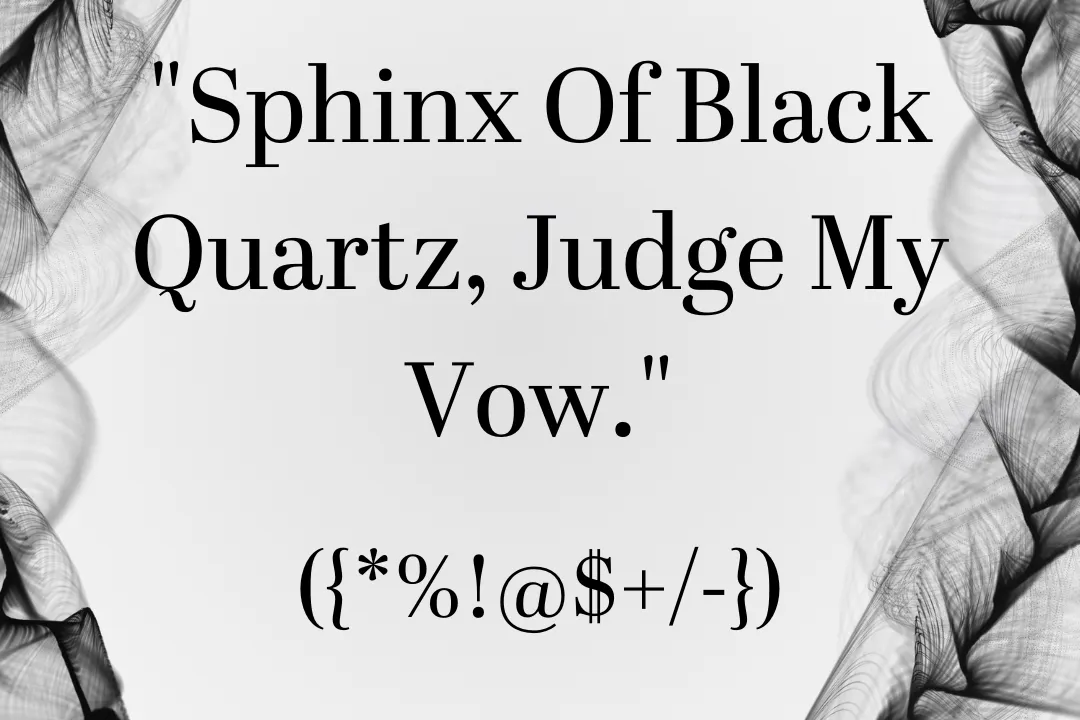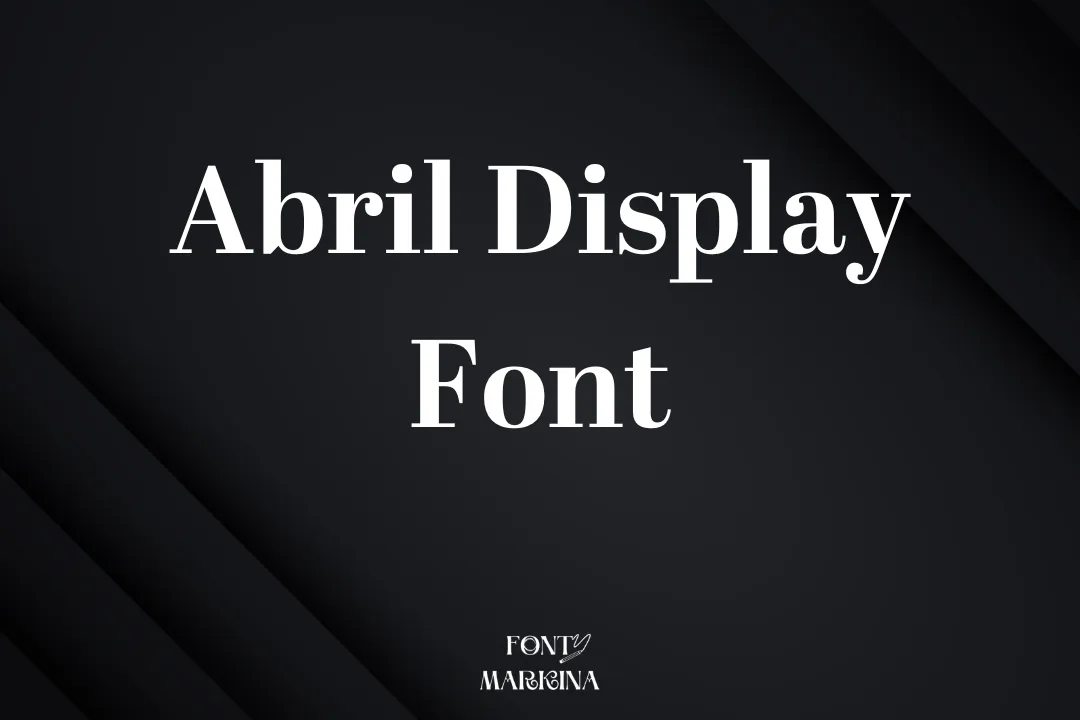
Introducing to you a staggering texture known as Abril Display Font. It belongs to the category of serif fonts. This incredible texture comes in eight unique text styles and also it is available in twelve display styles. Each style has its special and outstanding character set.
This font family supports more than 50 popular languages all over the world. Similar fonts to this family are available on google fonts. Some unique styles are Bold, Italic, Semi-bold, extra bold, regular, and others.
You can also utilize its similar Belda Font has more classic features. The sub-family of Abril Display Font is Italic. Also, you can utilize its generator tool for graphic projects.
Who can design the Abril Display Font
The hard work of Jose Scaglione and Veronika Burian developed this tremendous typeface. They update this font family in the year 2020. This texture was released through TypeTogether Company.
Uses of Abril Display Font
This font family is famous among designers because of its text and display styles. You can use it for special signatures, design stuff, business reports and records, certificates, etc. It is more classic when using Baskerville font with the pairing of this family.
In business and educational sectors, this typeface is mostly used. All companies and brands used this texture for their product packaging and item design. For social media posts, this typeface is well suited. It is best for creating personal blogs.
Abril Display Font View
What type of font is Abril Display?
This wonderful family comes from the serif family and includes 8 text styles and 12 display styles with classic character sets.
Is there any similar to the Abril Display typeface?
Bell MT Font is similar to this texture because both have the same style and characters.